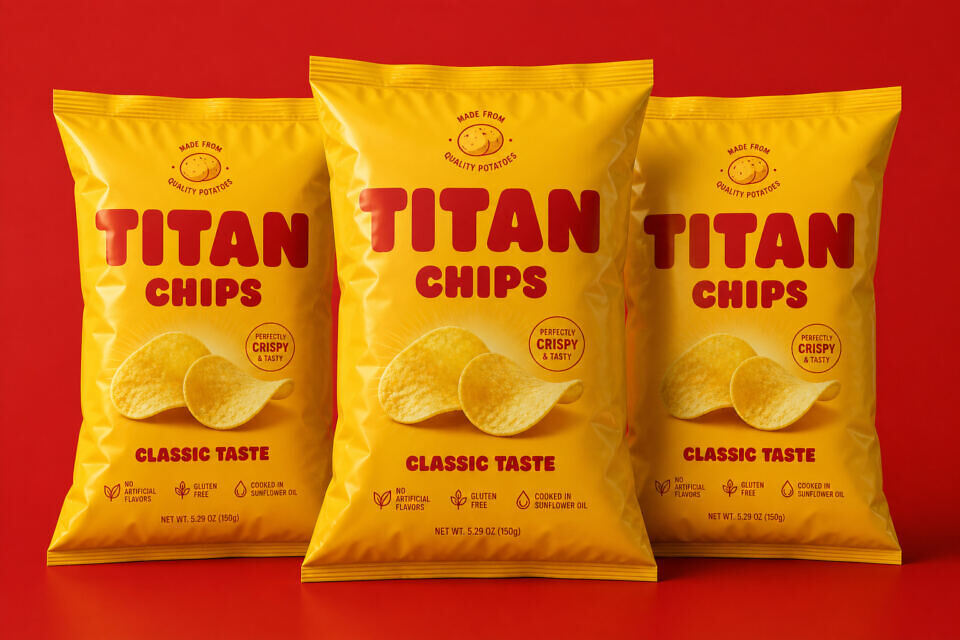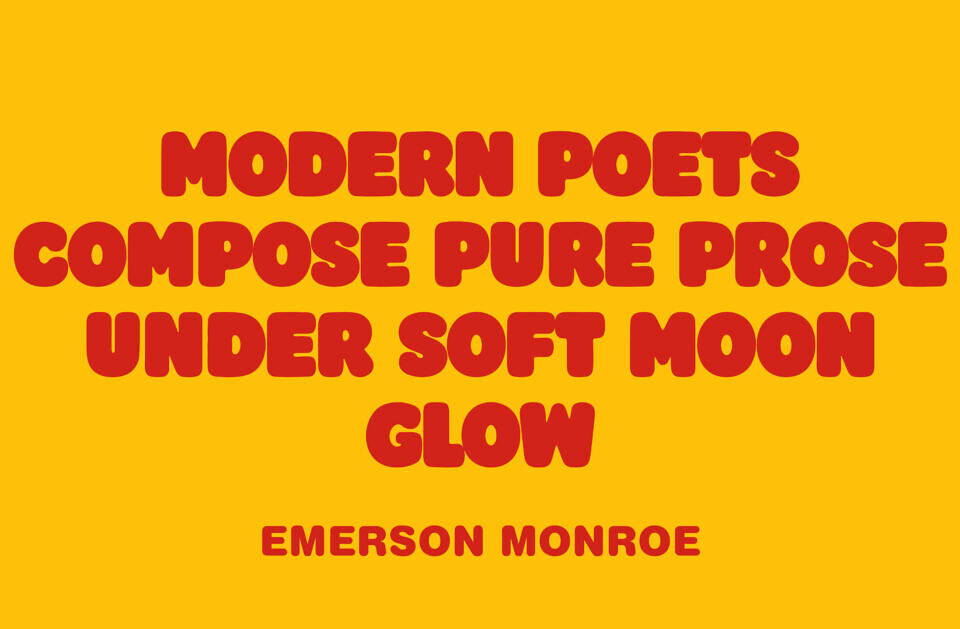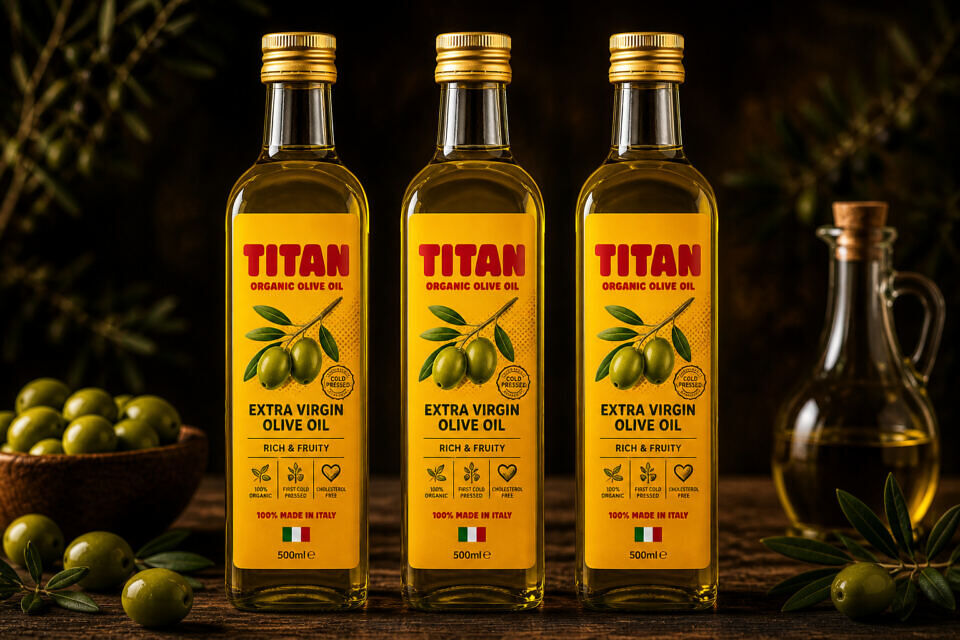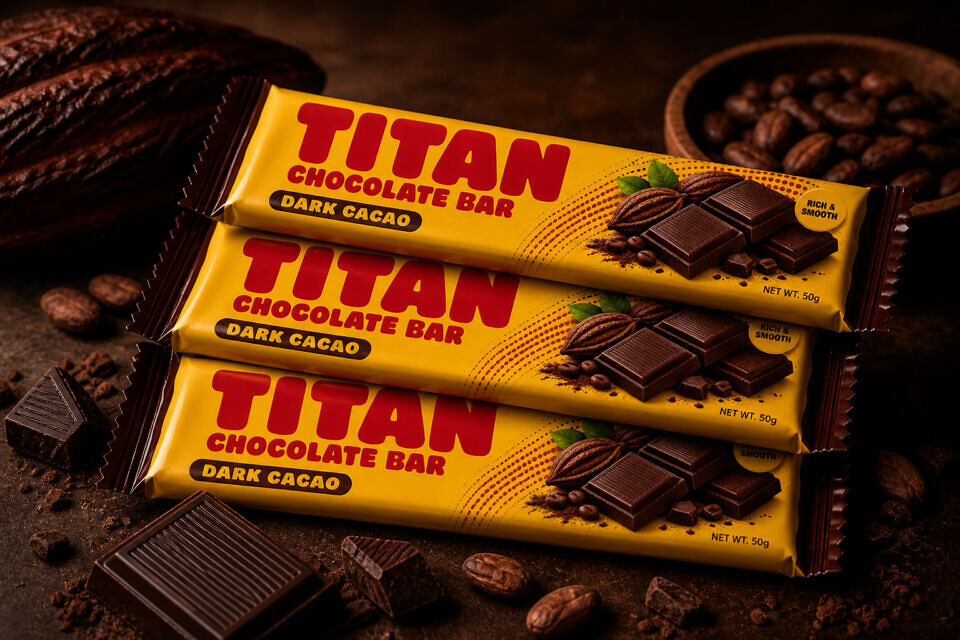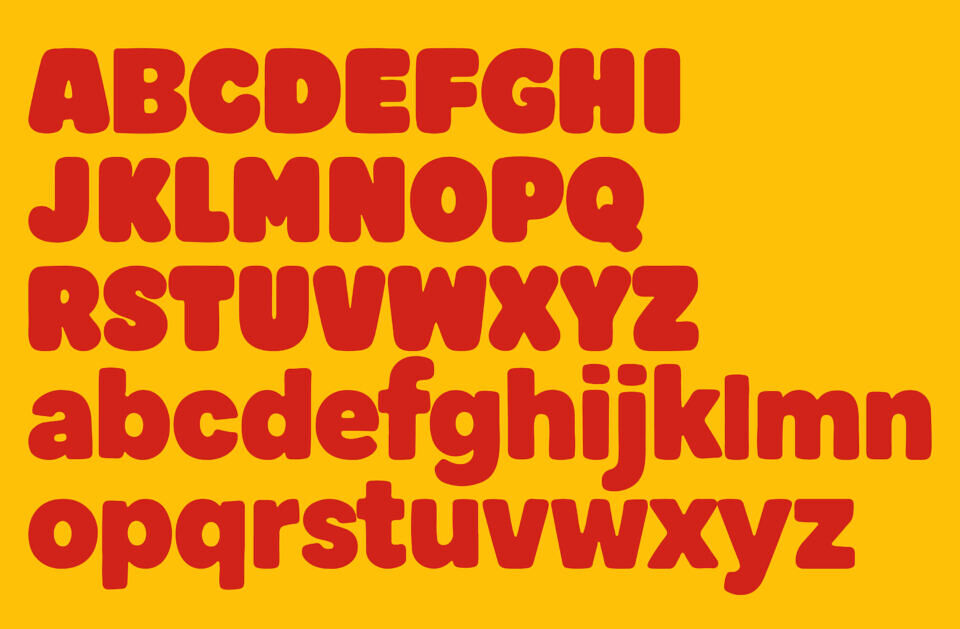
Titan Font
Make your designs impossible to ignore with TITAN, a heavy, high-impact display font built for brands that want to dominate attention. With its thick, rounded letterforms and strong visual presence, TITAN is engineered for packaging, logos, labels, and any design that needs to stand out instantly.
Whether you’re creating product packaging, streetwear branding, food labels, or bold social media graphics, TITAN delivers a confident, modern look that converts viewers into customers.